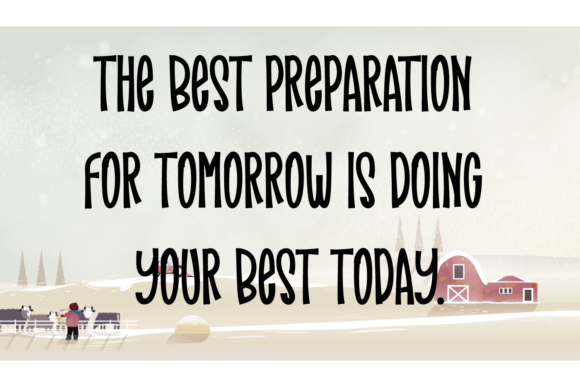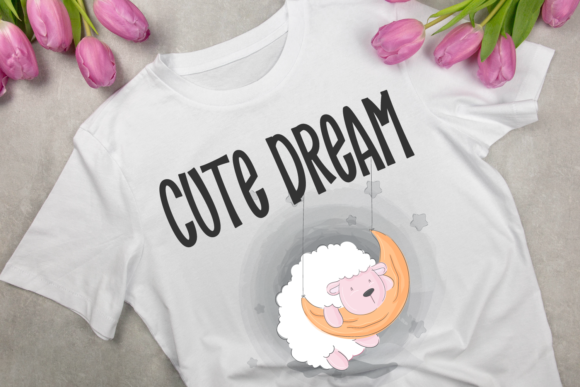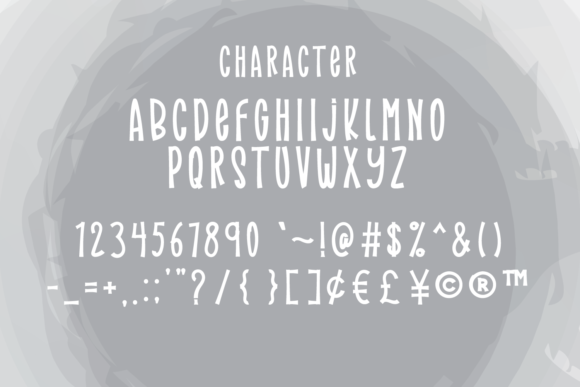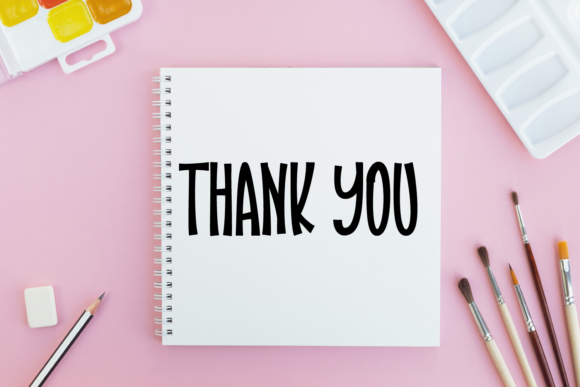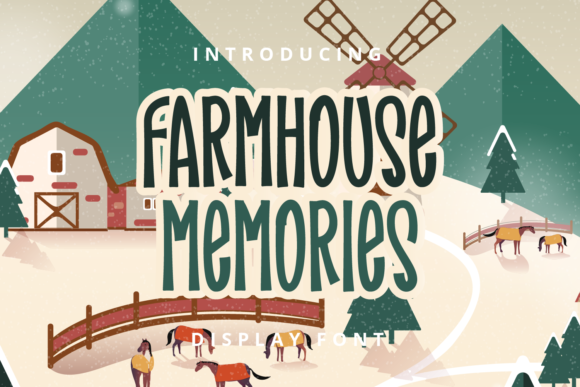
Introducing Farmhouse Memories Font: A Playful and Charming Display Font
Are you a designer or crafter looking for a font that can add a touch of warmth and personality to your projects? Look no further than Farmhouse Memories Font, a cool and playful display font that’s perfect for creating eye-catching logos, branding, and quotes. With its unique and beautiful touch, this font is sure to make your designs come alive.
What Makes Farmhouse Memories Font So Special?
Farmhouse Memories Font is a one-of-a-kind display font that boasts a charming and rustic feel, reminiscent of a simpler time. Its playful and whimsical design makes it perfect for a variety of projects, from logos and branding to quotes and social media graphics. Every letter in this font has been carefully crafted to have a unique and beautiful touch, giving your designs a personal and handmade feel.
Whether you’re a professional designer or a crafter looking to add a personal touch to your projects, Farmhouse Memories Font is the perfect choice. Its versatility and charm make it suitable for a wide range of projects, including:
- Logos and branding: Create a lasting impression with a custom logo that showcases your brand’s personality.
- Quotes and social media graphics: Add a touch of warmth and personality to your quotes and social media graphics.
- Invitations and stationery: Create beautiful and unique invitations and stationery that will make your friends and family feel special.
- Crafting projects: Add a personal touch to your crafting projects, such as scrapbooking, card making, and DIY signs.
Key Features of Farmhouse Memories Font
Here are some of the key features that make Farmhouse Memories Font so special:
- Unique and beautiful touch: Every letter in this font has been carefully crafted to have a unique and beautiful touch.
- Playful and whimsical design: This font boasts a playful and whimsical design that’s perfect for creating eye-catching graphics.
- Charming and rustic feel: Farmhouse Memories Font has a charming and rustic feel that’s reminiscent of a simpler time.
- Versatile: This font is suitable for a wide range of projects, from logos and branding to quotes and social media graphics.
How to Use Farmhouse Memories Font
- Experiment with different sizes and colors: Farmhouse Memories Font looks great in a variety of sizes and colors.
- Pair it with other fonts: Try pairing Farmhouse Memories Font with other fonts to create a unique and interesting look.
- Use it for headlines and titles: This font is perfect for headlines and titles, where you want to make a bold statement.